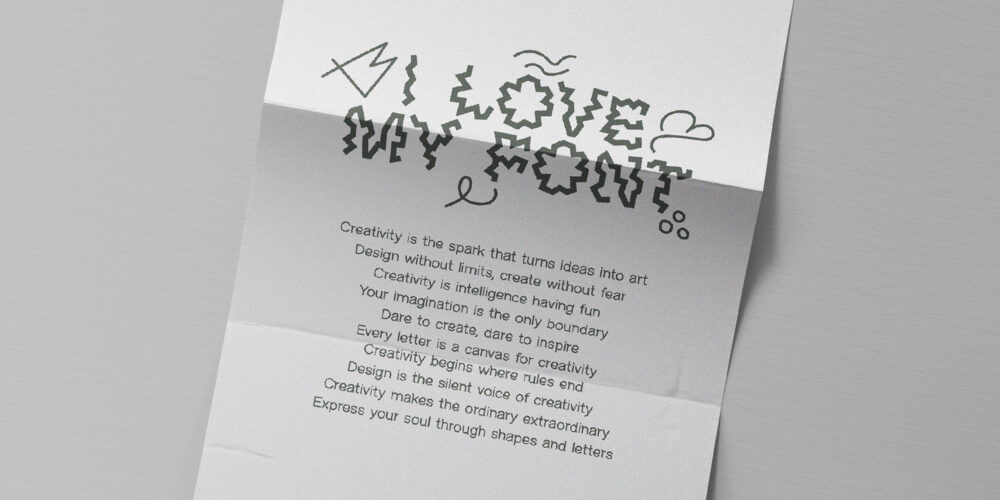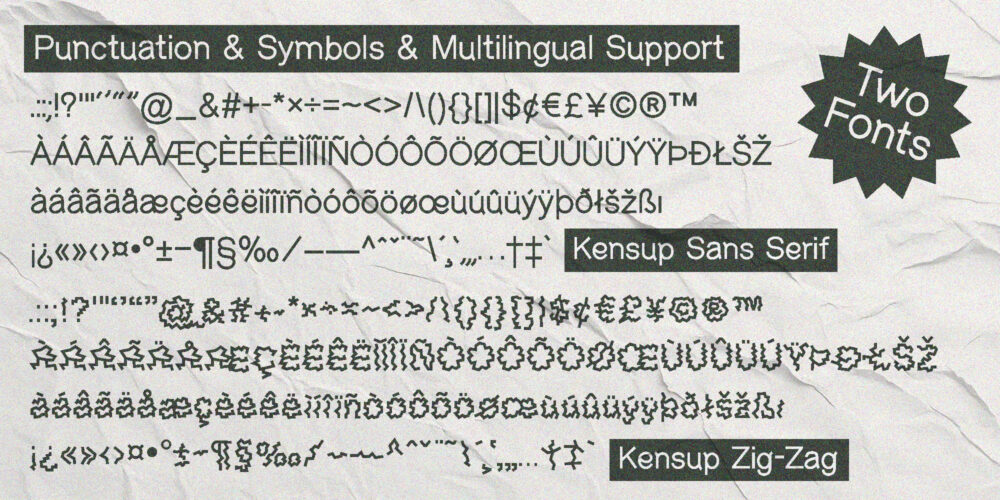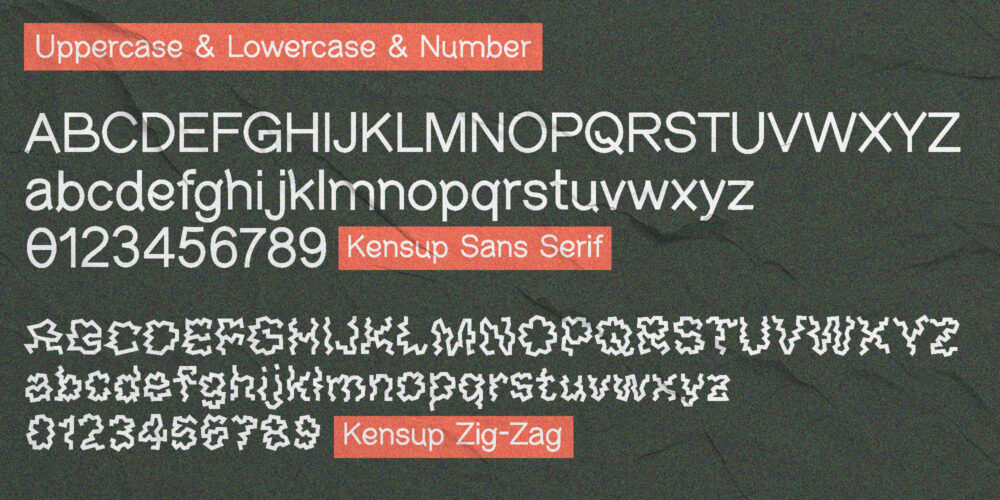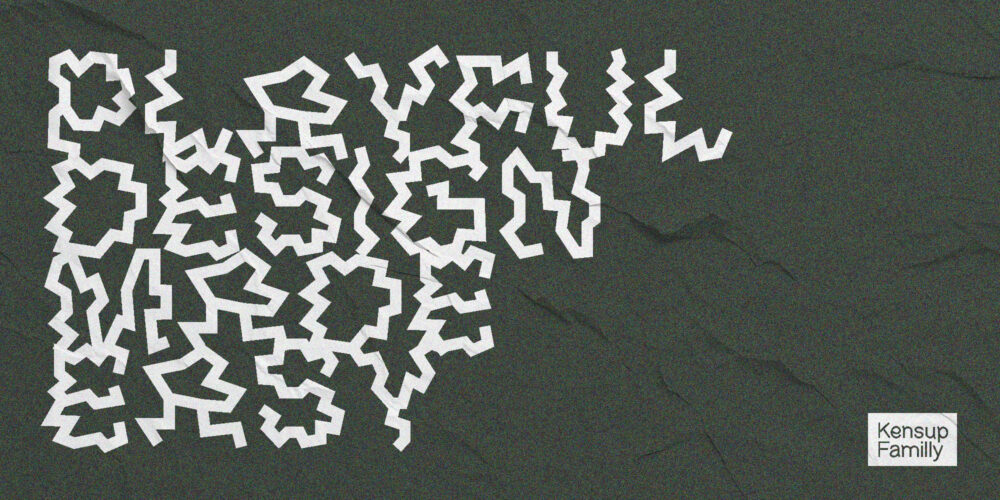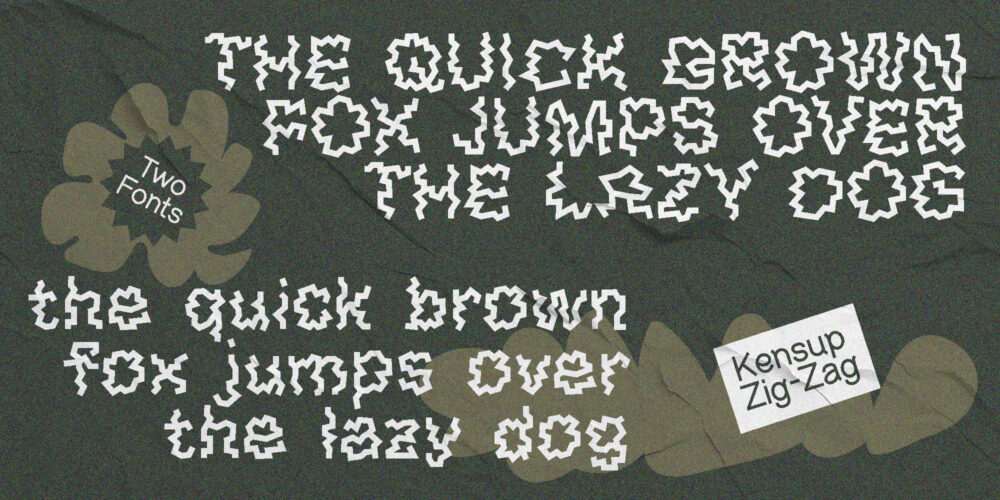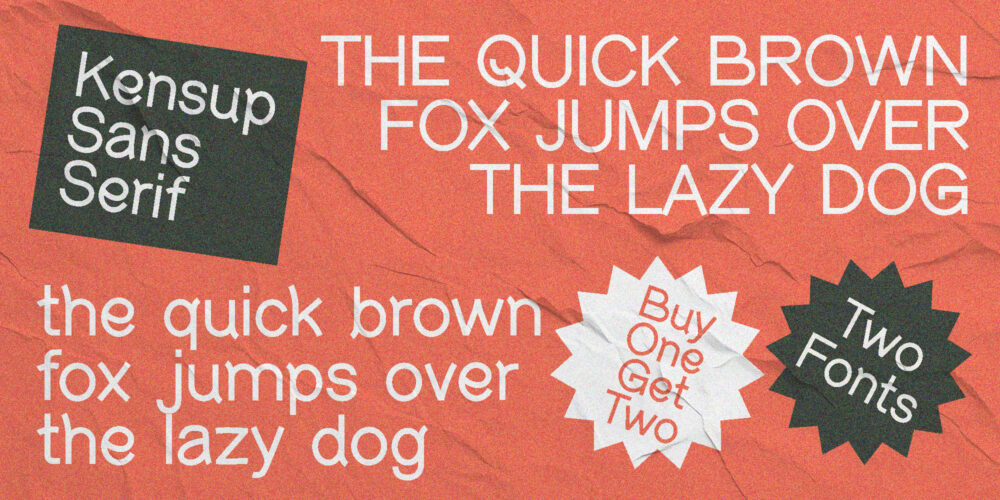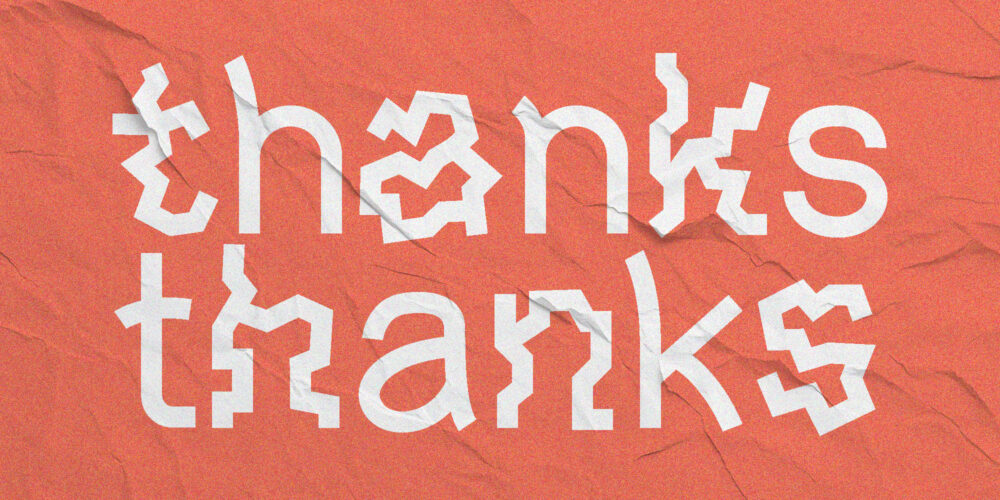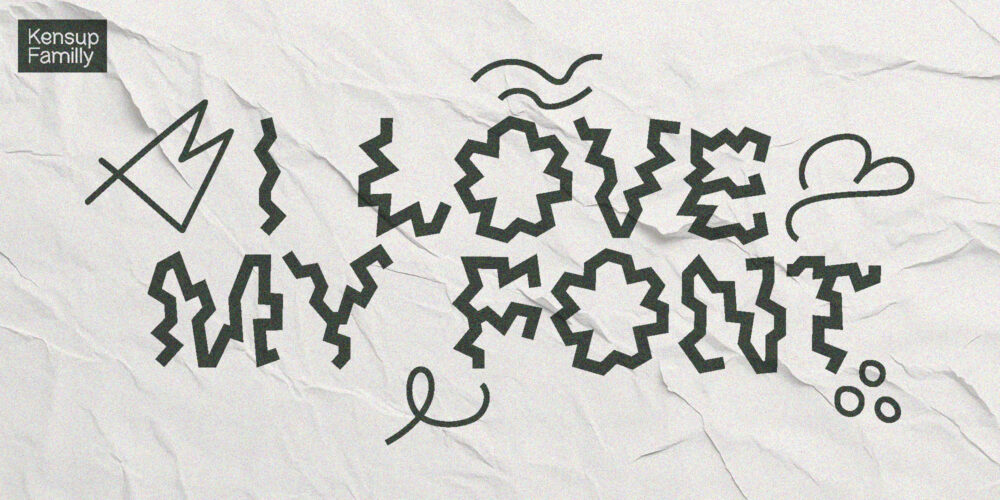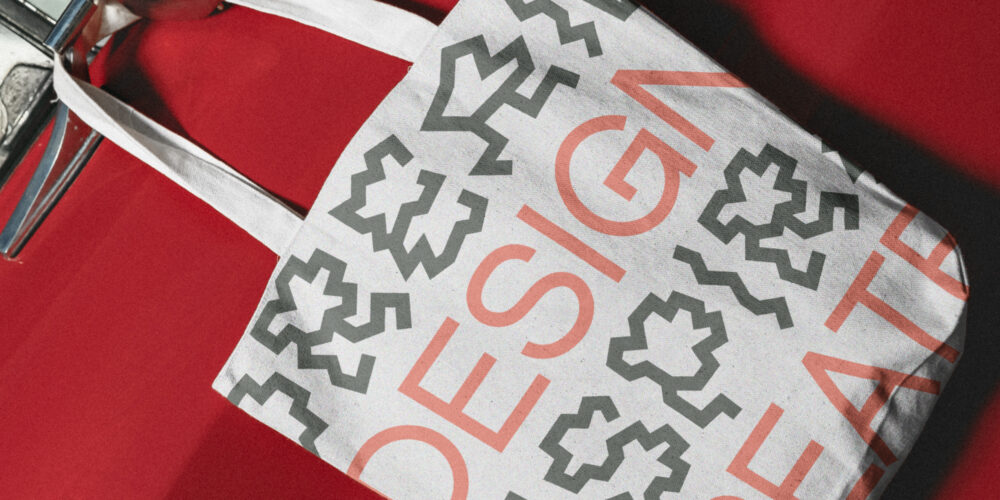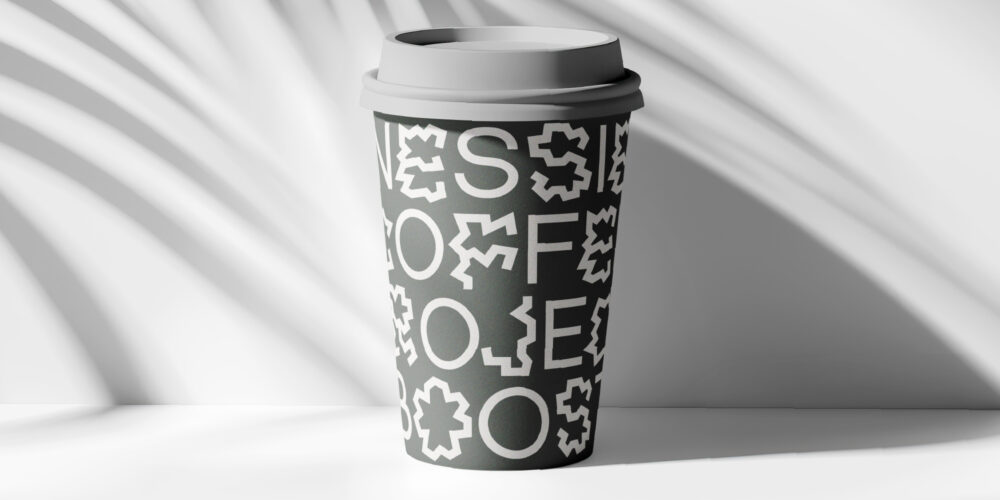
Kenzoo Supplies Playful Duo Font
Kenzoo Supplies Family is a playful duo font that combines two unique styles in one package: a clean, modern Sans Serif and a quirky, energetic Zigzag. This versatile pair is perfect for branding, packaging, posters, apparel, and social media designs.
The font includes uppercase & lowercase letters, numbers, punctuation, and multilingual support, making it suitable for a wide range of creative projects across different languages.
If you’re looking for a typeface that balances professionalism with a fun twist, Kenzoo Supplies Family will make your designs stand out with personality.
Kenzoo Supply Familly – Playful Duo Font